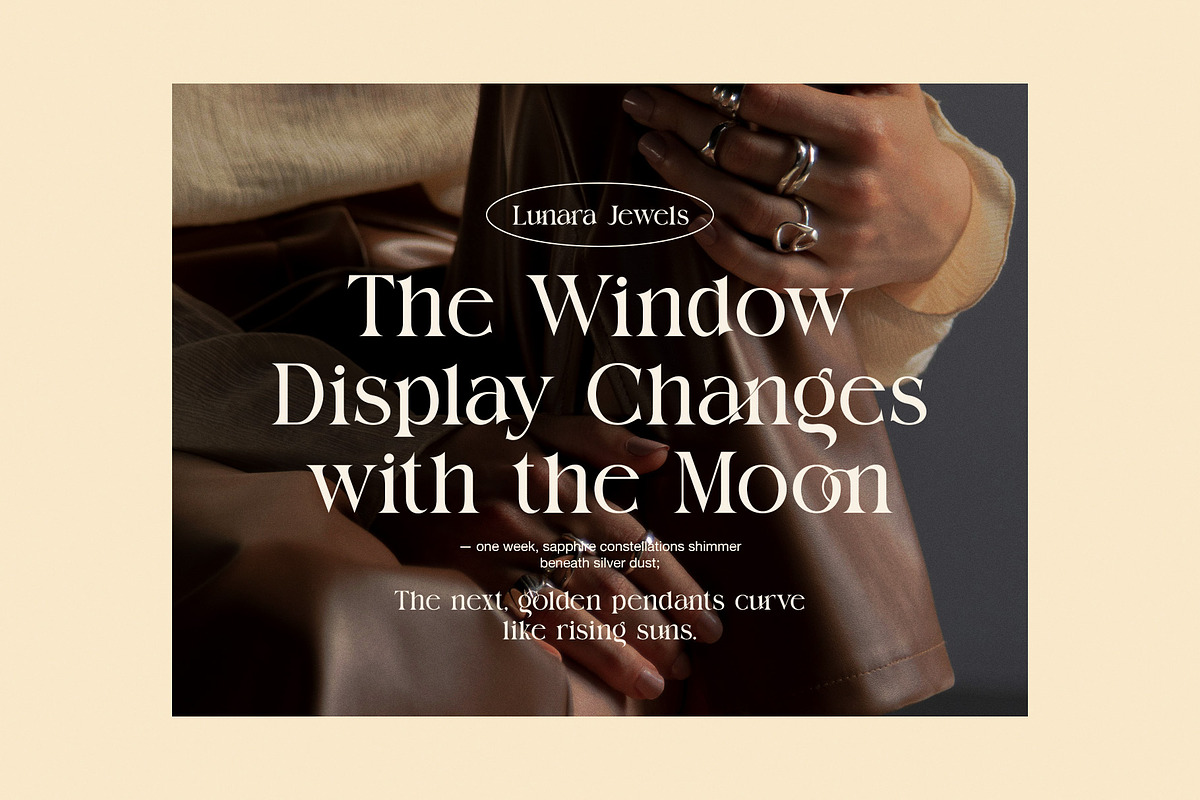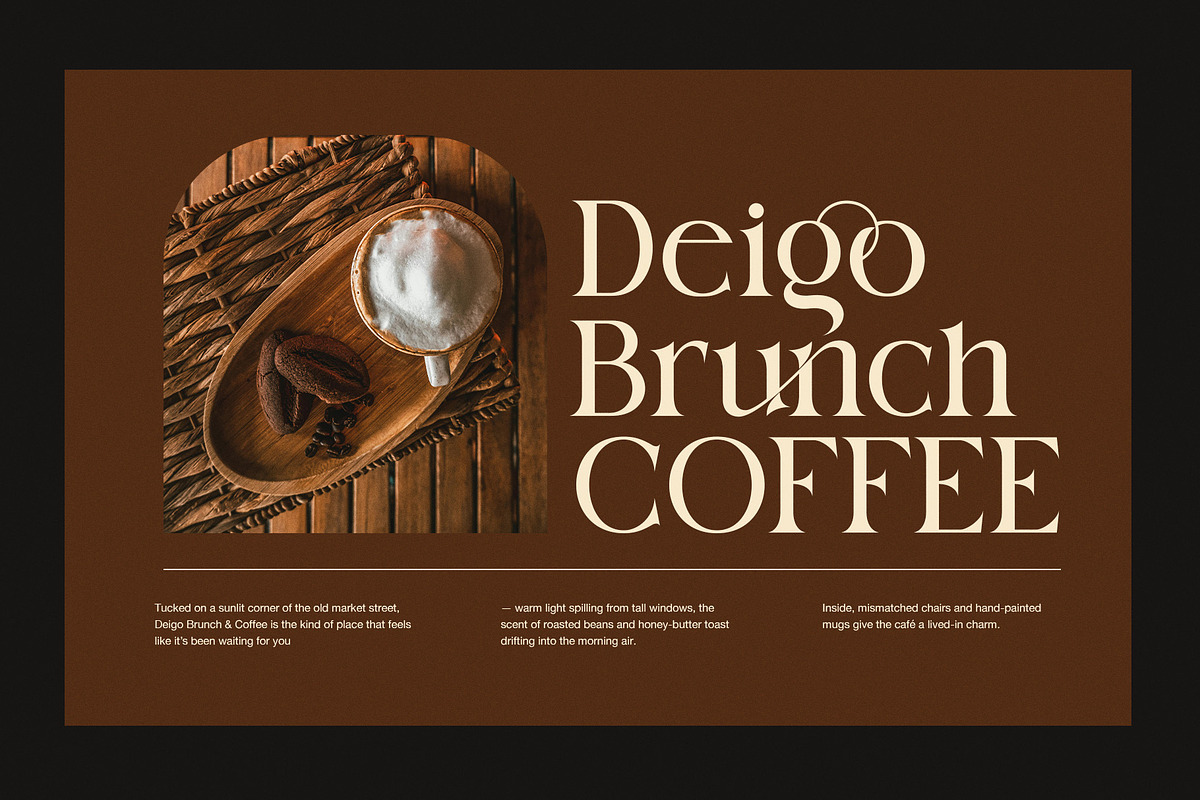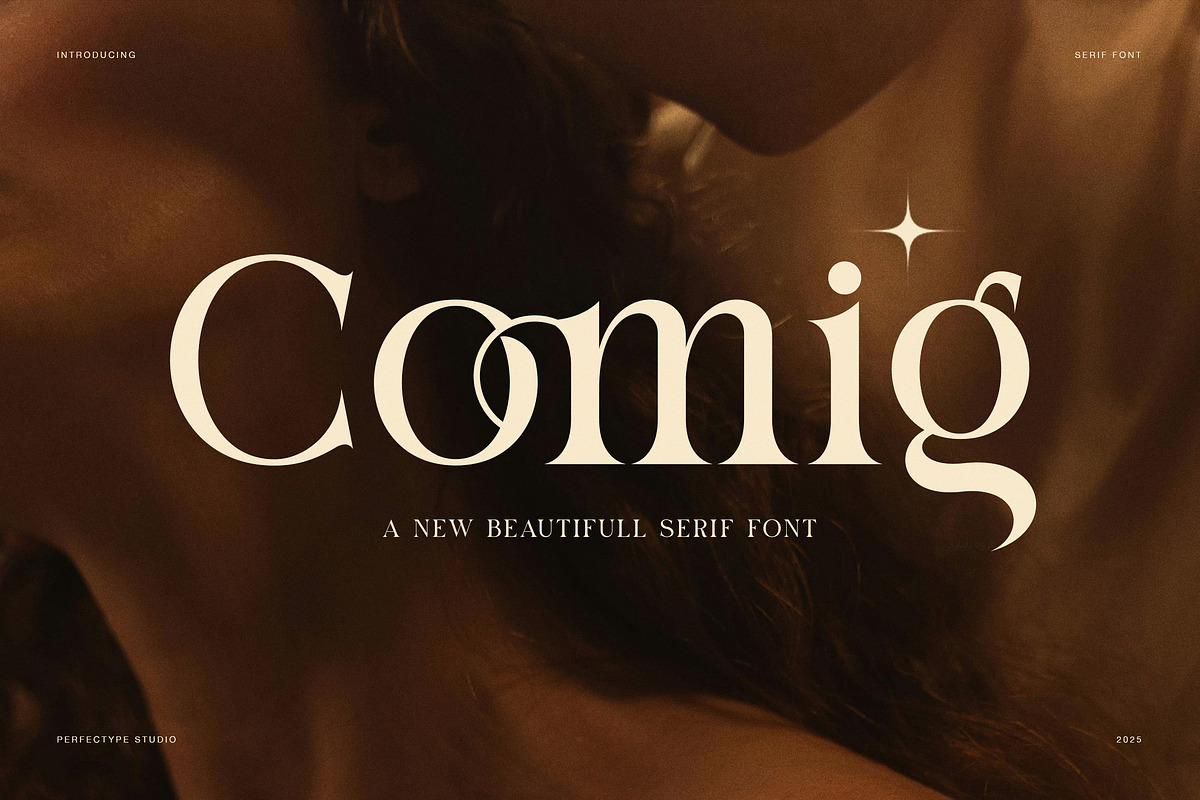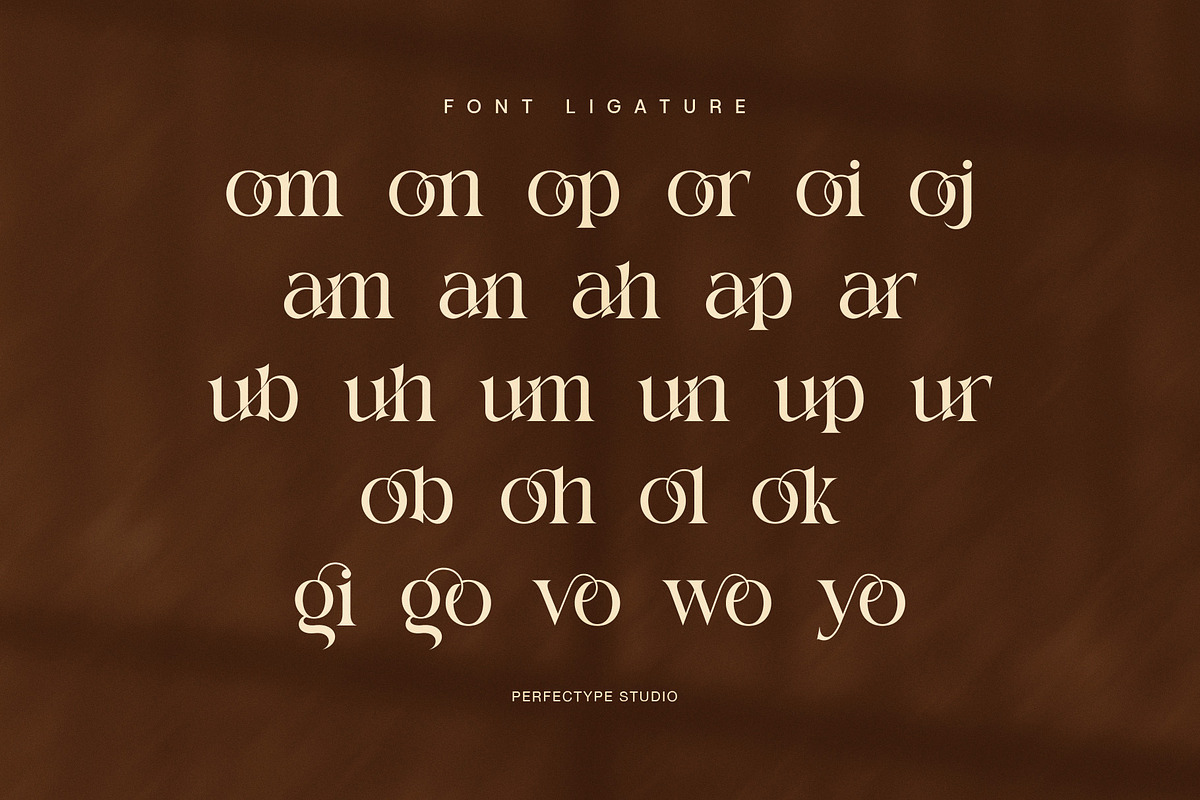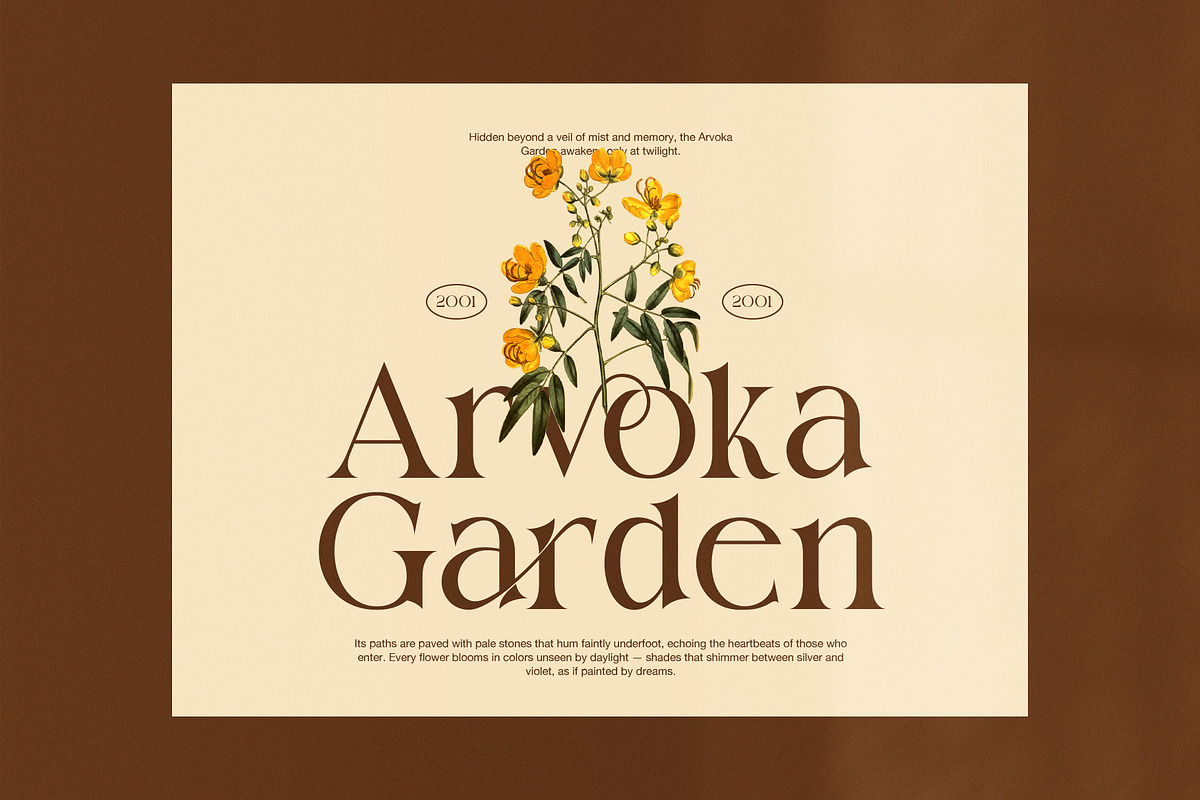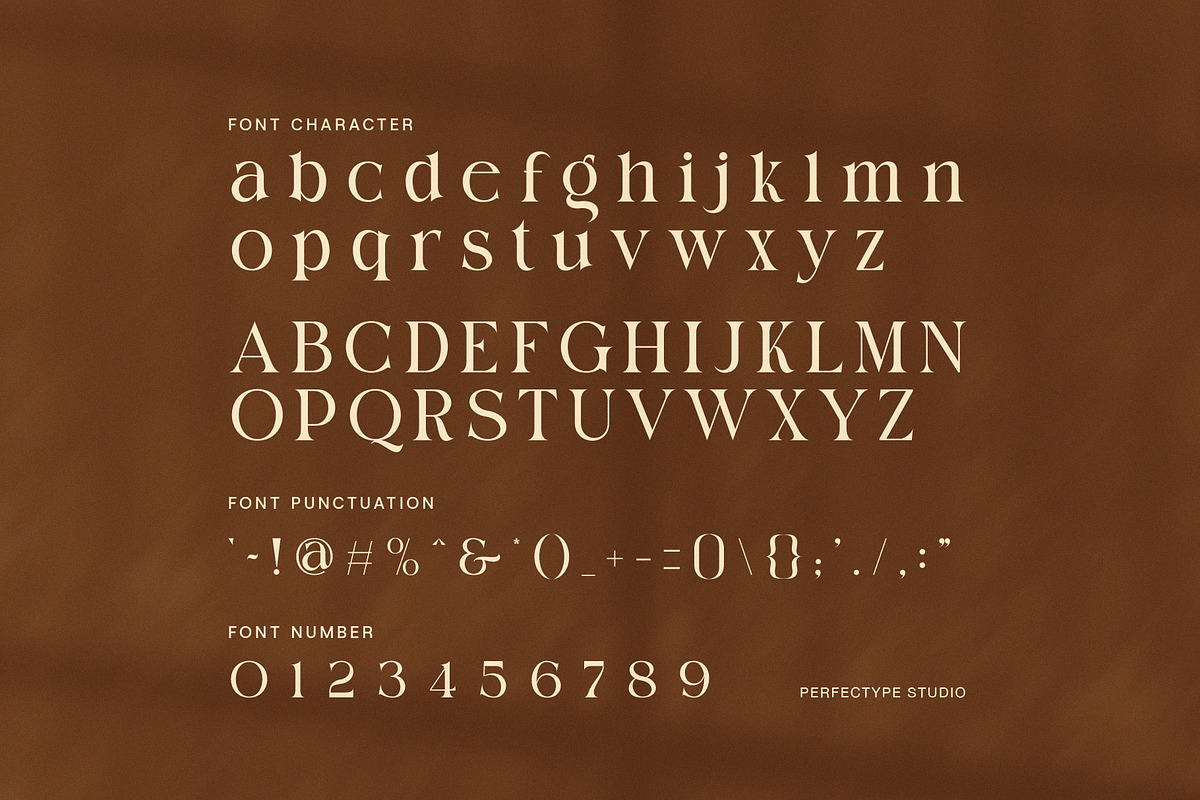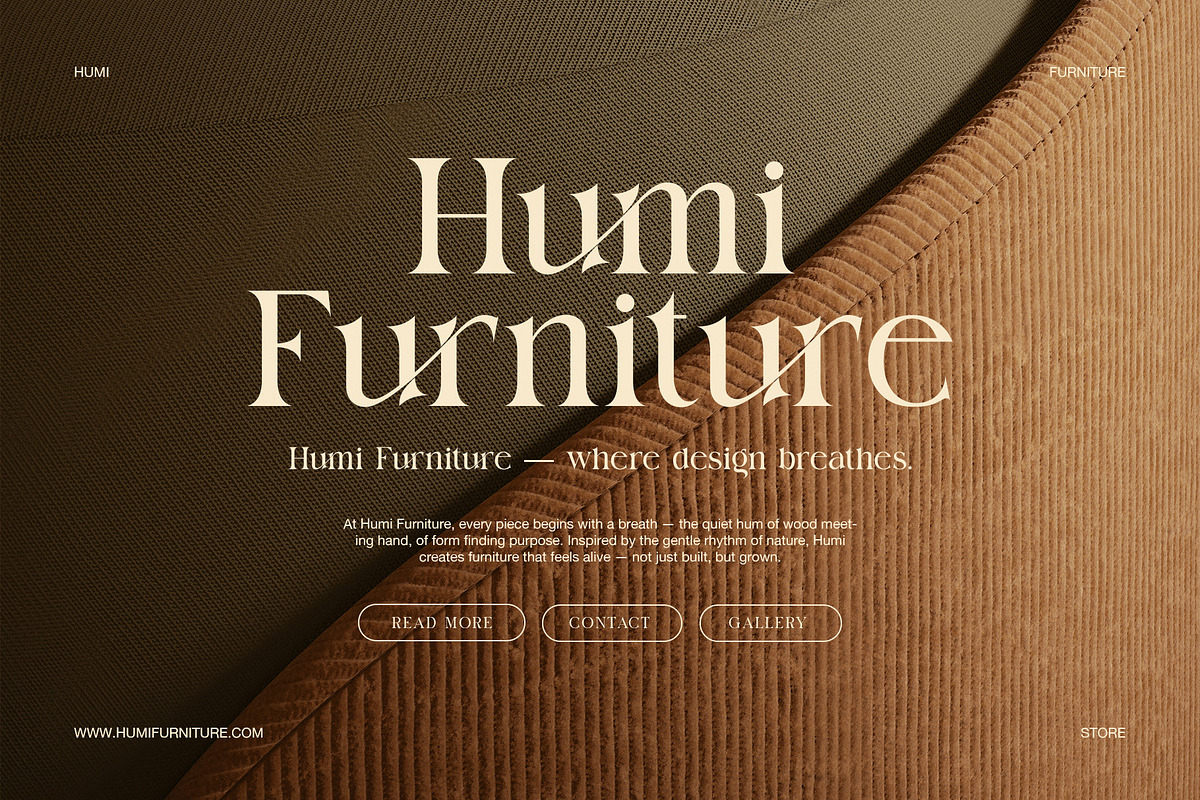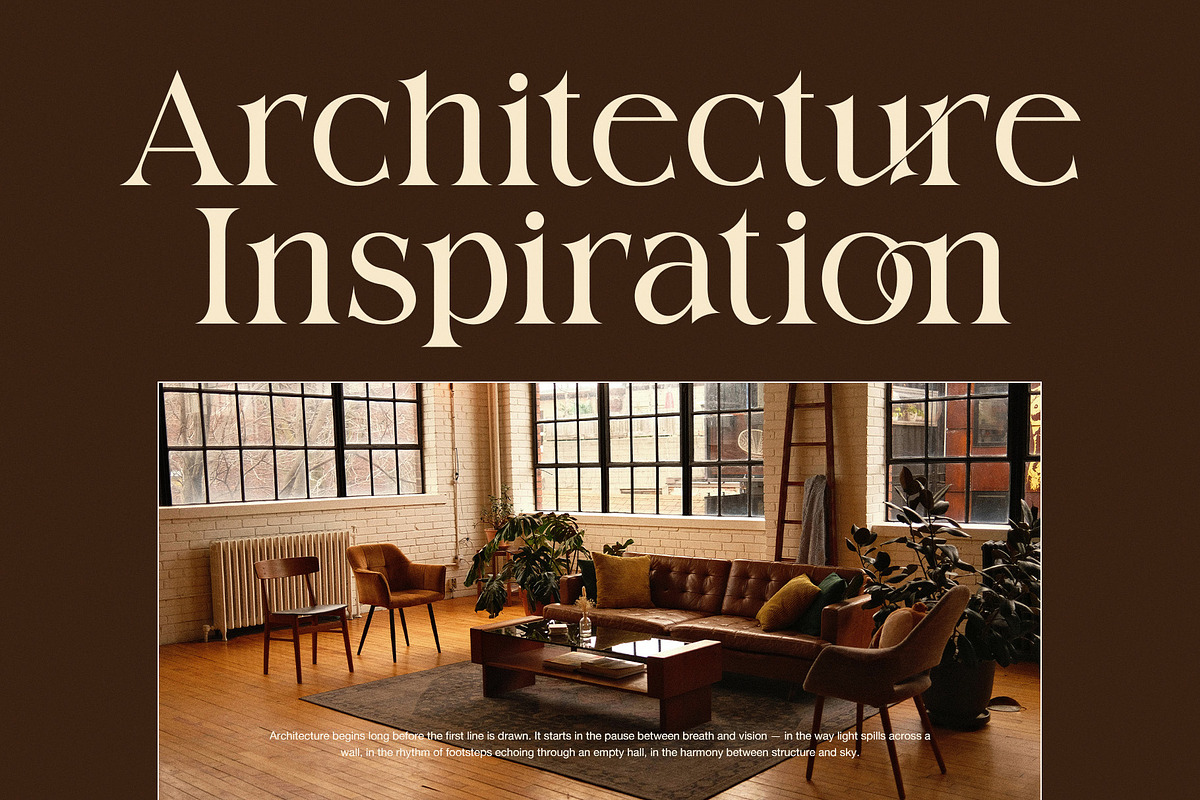
Comig Elegant Serif Font
Refined Elegance with Expressive Detail
Comig is an elegant serif font that blends classic structure with expressive character. The design features smooth curves, sharp terminals, and graceful contrast. As a result, the font delivers a warm and confident tone that feels timeless yet modern.
Moreover, Comig uses refined proportions that keep every letter balanced. The shapes feel soft but controlled, which gives text a calm rhythm. Therefore, designers can create layouts that feel polished without looking rigid. Each character flows naturally, which improves visual harmony across headlines and branding.
Built for Atmosphere and Storytelling
Comig supports designs that rely on mood and emotion. Because the letterforms feel expressive, the font works beautifully in lifestyle branding, editorial layouts, and creative campaigns. In addition, its elegant serif style enhances cafés, florists, fashion labels, and jewelry brands.
Designers often choose Comig for projects that need warmth and personality. For example, the font performs well in hotel visuals, coffee packaging, and boutique identities. Furthermore, Comig adds charm to lookbooks, posters, and social media graphics. As a result, brands can maintain a consistent visual voice across platforms.
Practical Typography with Artistic Value
Comig combines beauty with function. The font includes uppercase and lowercase letters, numerals, punctuation, and a rich set of ligatures. These ligatures create smooth connections and elevate typographic detail. Meanwhile, spacing remains clean, which keeps text readable in both print and digital formats.
Because Comig maintains clear contrast, it works well for headlines and short text blocks. Therefore, designers can use it confidently for logos, menus, packaging, and editorial titles. The font supports creative freedom while maintaining clarity.
Why Choose Comig?
Elegant serif style with expressive curves
Rich ligatures for refined typography
Ideal for branding and editorial design
Strong readability across media
Timeless look with a warm, artistic feel
In conclusion, Comig gives designers a serif font that combines elegance, emotion, and versatility. It helps every project feel intentional and visually engaging.